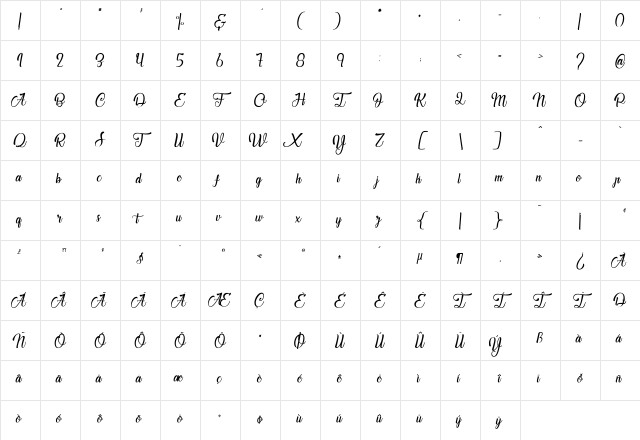
Jardin des Bermudes Regular Free Font
Jardin des Bermudes Regular
Design Context for Jardin des Bermudes
Jardin des Bermudes is a composed and adaptable typeface that performs quietly and consistently across a wide range of design contexts.